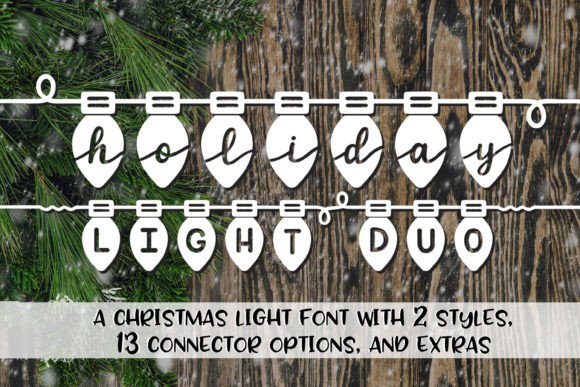
Looking to add a touch of festive magic to your Christmas and holiday projects? Look no further than the Holiday Light Duo Font, created by the incredibly talented Stacy of Stacy's Digital Designs! This decorative font is a true game-changer, offering not one, but two fonts in one package!
With its unique and captivating design, Holiday Light Duo Font is the ultimate choice for anyone seeking to infuse their creations with the spirit of the season. This font is specifically crafted to elevate your projects, ensuring they stand out from the crowd and leave a lasting impression.
What sets Holiday Light Duo Font apart from the rest is the incredible versatility it offers. With two distinct styles to choose from, you have the power to select the perfect aesthetic that aligns with your vision. Whether you prefer a classic or a modern look, this font collection has got you covered!
But that's not all - the holiday magic continues with 13 connector options! These connectors allow you to effortlessly link letters together, creating beautiful and seamless typography. Say goodbye to boring and monotonous text, and embrace the stunning connectivity that Holiday Light Duo Font provides.
To add an extra sparkle to your designs, this font collection also includes 8 additional holiday-themed lights. These delightful elements will instantly transform your project into a winter wonderland, evoking feelings of joy, warmth, and excitement. Imagine the enchanting glow these lights will bring to your greeting cards, invitations, banners, and more!
We understand the importance of finding the perfect font for your Christmas-themed projects, which is why we highly recommend Holiday Light Duo Font. Its rich collection of eye-catching, keyword-rich styles and options will leave you spoilt for choice.